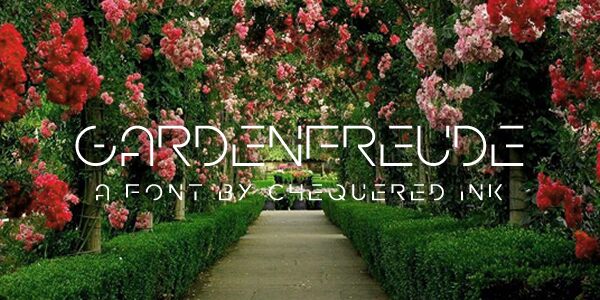
Gardenfreude
Gardenfreude, a captivating display font designed by Chequered Ink, exudes a sense of whimsical charm and vintage allure. Its expanded letterforms and ornamental flourishes create a visual rhythm that evokes the lush botanicals of a well-tended garden.
The interplay of thick and thin strokes, combined with the font's playful serifs, lends a playful, artisanal quality that would shine in editorial layouts, packaging design, and branding applications.
Gardenfreude's distinctive aesthetic makes it a versatile choice for projects seeking to convey a touch of nostalgic elegance or a modern, nature-inspired aesthetic.
Gardenfreude by Chequered Ink.